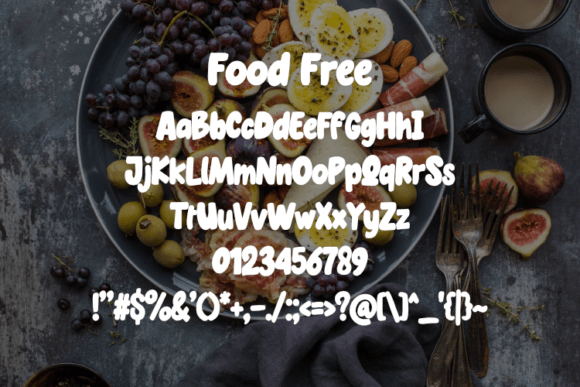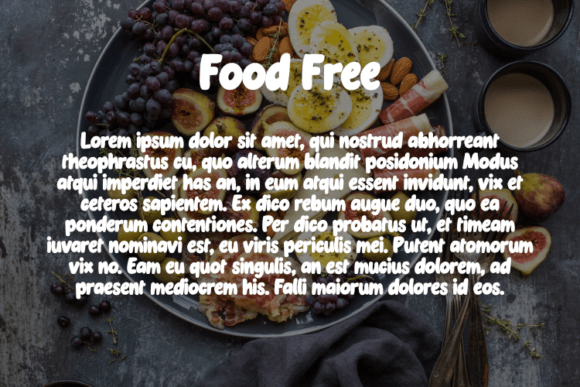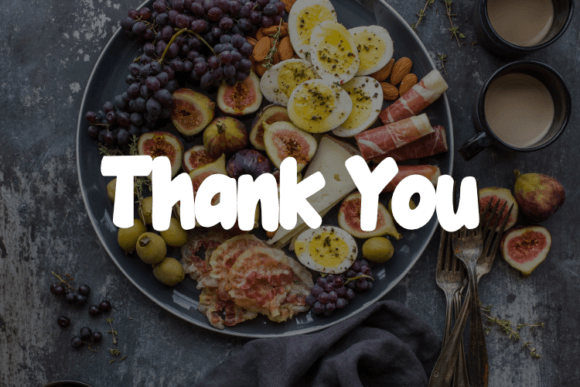
Introduction to Food Free Font Font
Fonts play a crucial role in design, and the Food Free Font font is a typeface that brings both character and versatility to any project. Whether you’re working on a branding project, a website, or a print design, the Food Free Font font offers a unique style that can elevate your work.
Indulge in the culinary charm of the Food Free Sadikem typeface, a delightful font designed to garnish your clothing items, t-shirts, and other artistic creations.
Key Features of Food Free Font Font
Why Choose Food Free Font Font?
The Food Free Font font is more than just a typeface – it’s a design tool that helps you communicate your message with style and clarity. Its unique character set and versatile design make it suitable for a wide range of applications, from elegant invitations to bold headlines.
With its carefully crafted letterforms and balanced proportions, the Food Free Font font ensures readability and visual appeal across all mediums.
What makes Food Free Font font special?
The Food Free Font font stands out with its unique design, exceptional readability, and versatility across various design applications.